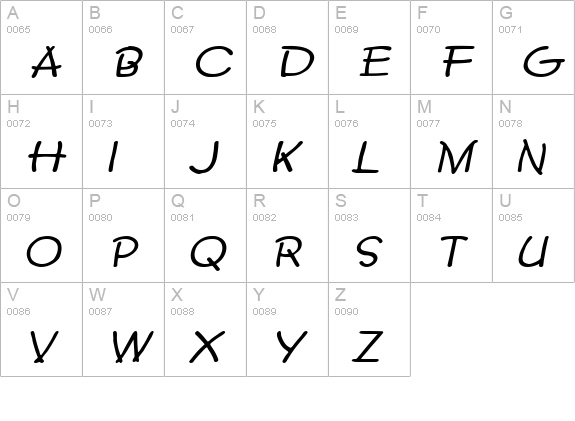
CrayonExtended Italic is a distinctive, italic variant in the CrayonExtended typeface family \xE2\x80\x94 well suited to design and typography projects.
CrayonExtended Italic font is a whimsical and playful typeface that adds a touch of creativity to any design project. The italicized style gives it a unique and dynamic appearance, perfect for conveying a sense of fun and imagination. With its hand-drawn look and slightly slanted letters, this font is sure to stand out and make a statement. Best of all, CrayonExtended Italic font is available for free download at FontsMarket.com. Whether you're working on a children's book, a poster, or a branding project, this font will add a dose of charm and character to your designs. Embrace the creativity and energy of CrayonExtended Italic font in your next project and watch it come to life with a touch of whimsy.